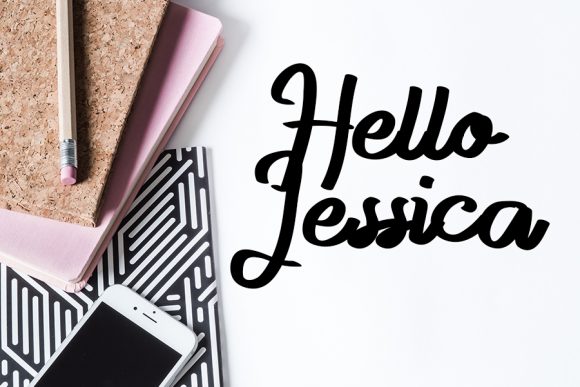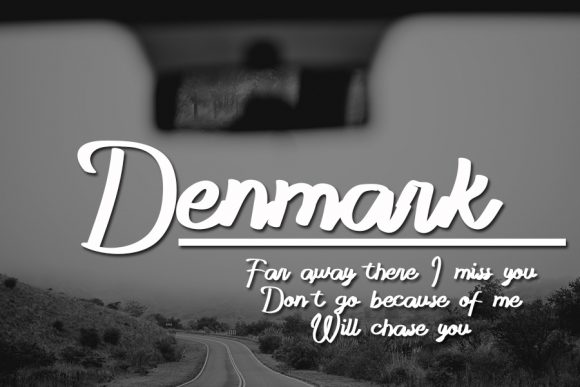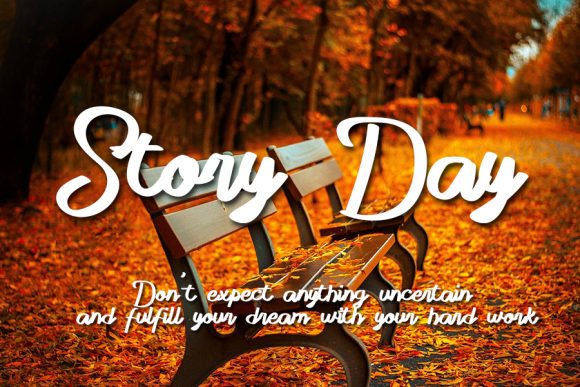
Introduction to Rolling Stay Font
Have you ever been in the midst of a creative project, staring at a blank canvas or page, and suddenly a burst of inspiration hits you? The ideas start flowing, and your imagination runs wild. This is exactly what the Rolling Stay Font aims to evoke in designers and artists alike – a sense of freedom and creativity.
As a high-quality design resource, Rolling Stay Font is the perfect addition to any project that requires an elegant touch. With its flowing handwritten style, this font is sure to add a unique and timeless touch to your designs. Whether you’re working on a logo, brochure, or website, Rolling Stay Font is a valuable asset that will help you bring your ideas to life.
Key Features of Rolling Stay Font
- High-quality design resource with a unique, modern aesthetic suitable for creative projects.
- Comes with a transparent background, making it easy to layer and customize for various design needs.
- Features a clean and elegant design, perfect for use in logos, branding, and typography-based creative projects.
- Designed to be highly legible, with a clear and consistent font size, suitable for use in a range of applications.
- Available in a single font size and resolution, making it easy to use and customize for various design projects.
Honest Review: Rolling Stay Font
I recently had the chance to work with the Rolling Stay Font and I must say, it’s a game-changer for any design project. The font is perfect for adding a touch of elegance and sophistication to your designs.
- High-quality design that looks great on both light and dark backgrounds
- Transparent background option allows for seamless integration with any design
- Perfect for creating a modern and stylish look in your creative project
Overall, I’m thoroughly impressed with the Rolling Stay Font. It’s a valuable design resource that’s perfect for adding a touch of class to your designs. While it may have some limitations, it’s definitely worth considering for your next creative project. Plus, it’s a free download, which is always a bonus!
Rolling Stay Font
To get the most out of the Rolling Stay Font, experiment with different font sizes, colors, and styles to find the perfect combination for your design project. You can also use the font in conjunction with other design elements to create a unique and eye-catching design.
The Rolling Stay Font is perfect for a variety of design projects, including social media graphics, blog posts, and marketing materials. It’s also great for creating custom typography and adding a personal touch to your designs.
Q: Is the Rolling Stay Font suitable for use on digital platforms, such as websites and social media?
Yes, the Rolling Stay Font is optimized for digital use and can be easily implemented on websites, social media, and other online platforms. Its high-quality design ensures that it will display clearly on various devices, including desktops, laptops, tablets, and smartphones.